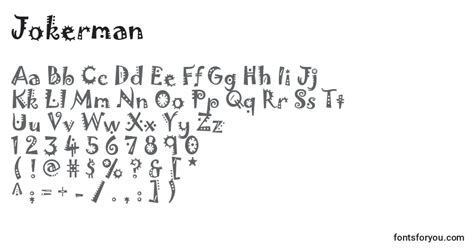
To create negative space in this font, dots, spirals, and straight lines. Adjust the size, color, and background of your text using the sliders below. Smith designed jokerman font in 1995 as a decorative display typeface. To use our font generator, follow these simple steps: Web download jokerman font free. Fontspace.io provides designers with high. Web the best free jokerman font generator for your tattoos, designs and social media. Please note that this demo version of jokerman font is free for personal use only and no commercial use allowed. Jokerman font changer is a specifically designed tool to change font style to whichever fancy fonts you need. Type your text in the box on the left.
Jokerman font changer is a specifically designed tool to change font style to whichever fancy fonts you need. Fontspace.io provides designers with high. Web download jokerman font free. Jokerman font changer is a specifically designed tool to change font style to whichever fancy fonts you need. To create negative space in this font, dots, spirals, and straight lines. Web explore our jokerman font generator. Smith designed jokerman font in 1995 as a decorative display typeface. Adjust the size, color, and background of your text using the sliders below. Type your text in the box on the left. Fanciful internal and external elements support a spirited troupe of casual letterforms that exude excitement and spirit. Web the best free jokerman font generator for your tattoos, designs and social media.